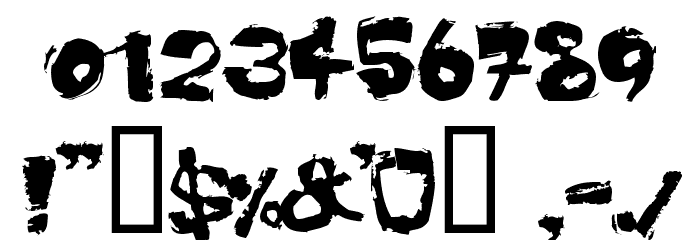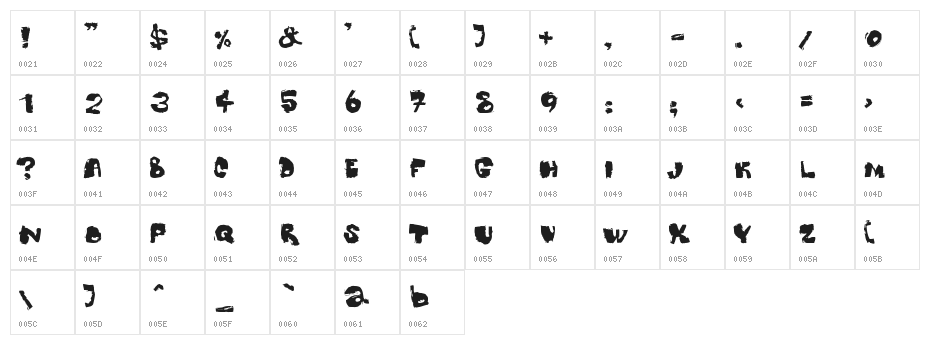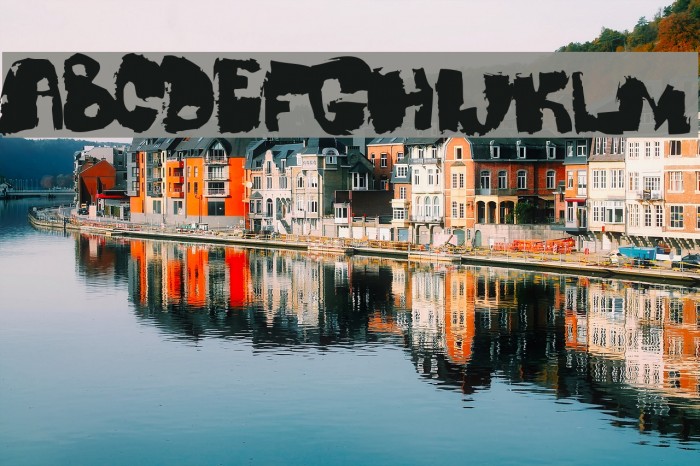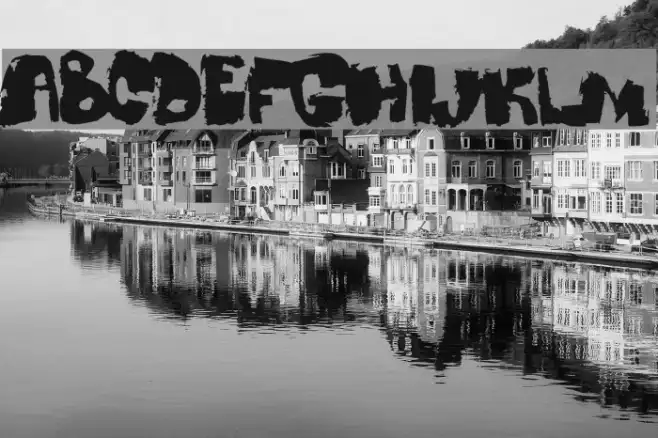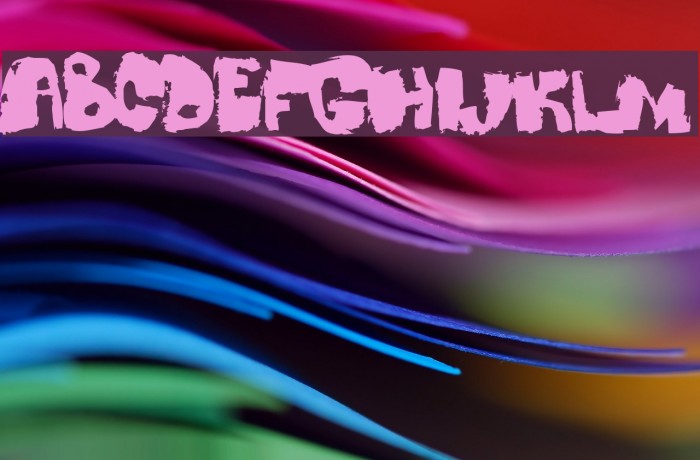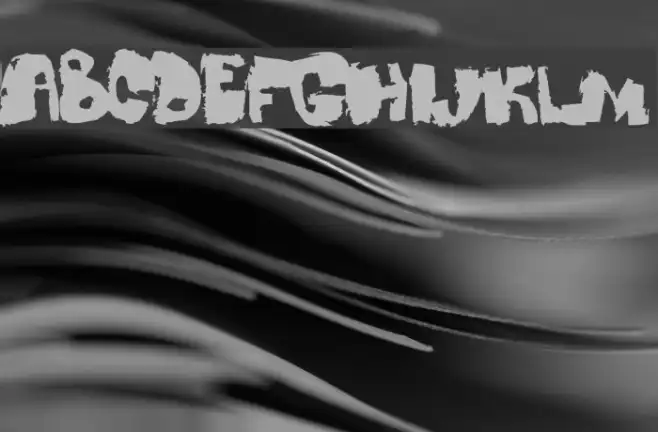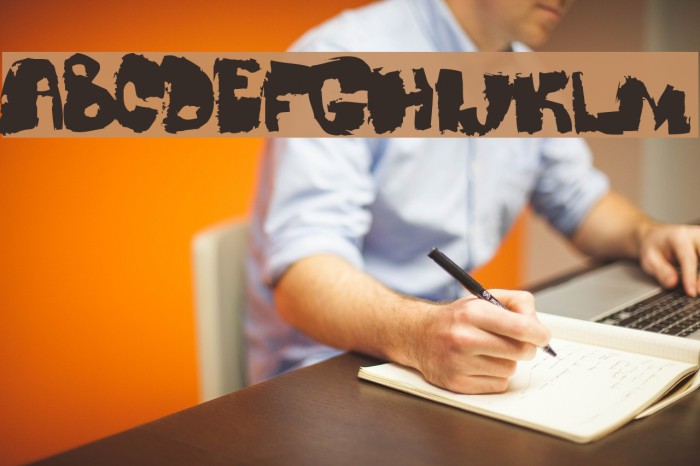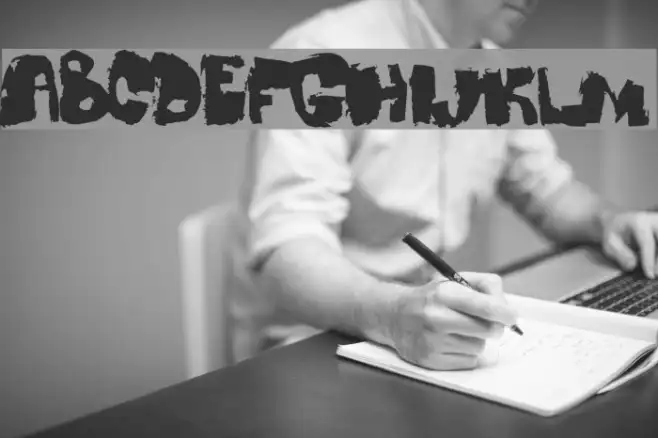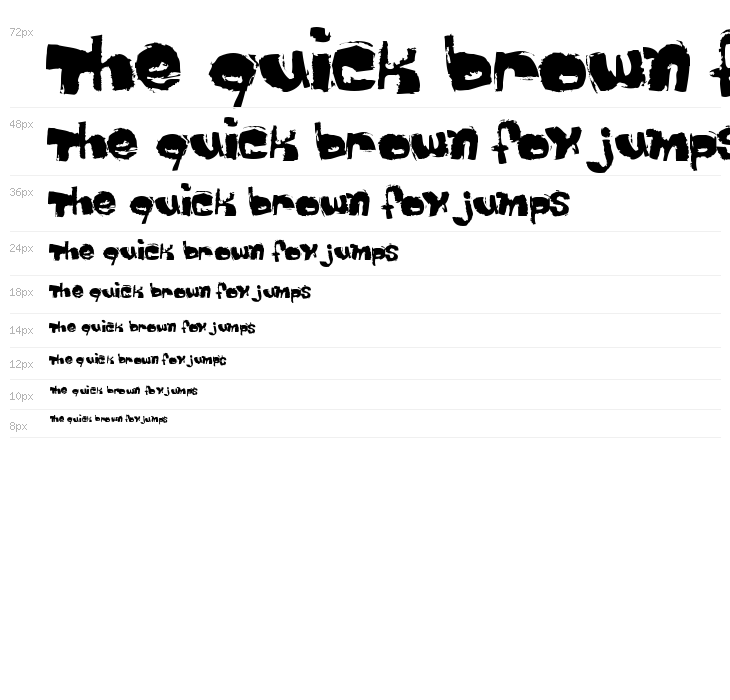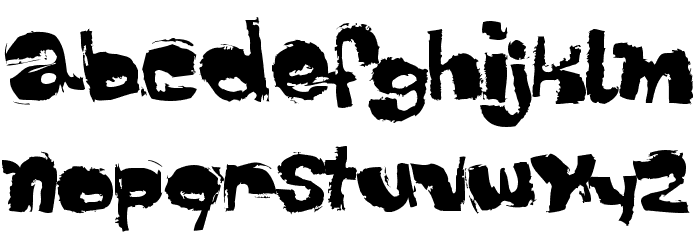
Dippex Font
Dippex Description
This font exhibits a bold, expressive style with a rough, textured appearance that mimics the look of brush strokes or paint splatters. The characters are irregular and dynamic, creating a sense of movement and energy. The uppercase and lowercase letters maintain a consistent style, with exaggerated curves and angles that add to the font's unique personality. The numbers and special characters follow the same aesthetic, ensuring a cohesive look across all glyphs. This font is ideal for projects that require a bold statement or artistic flair.
| Proposed Projects | Perfect for artistic projects, posters, album covers, or any design needing a bold, expressive touch. |